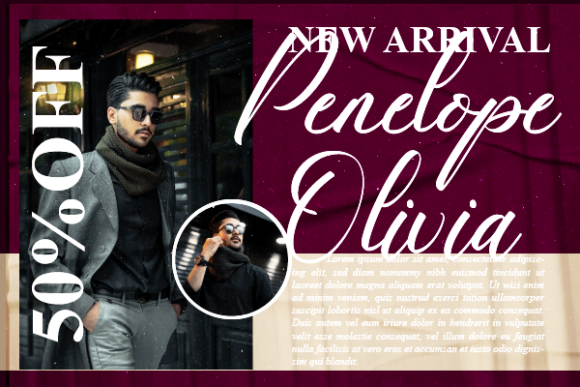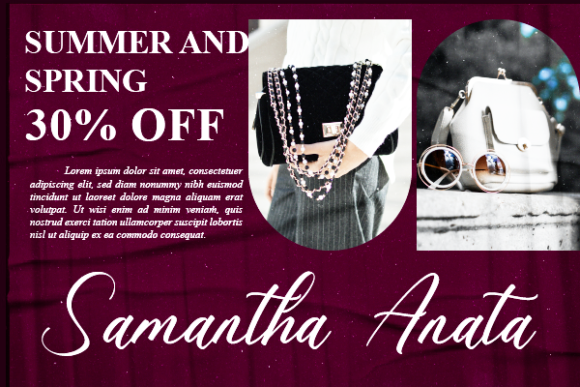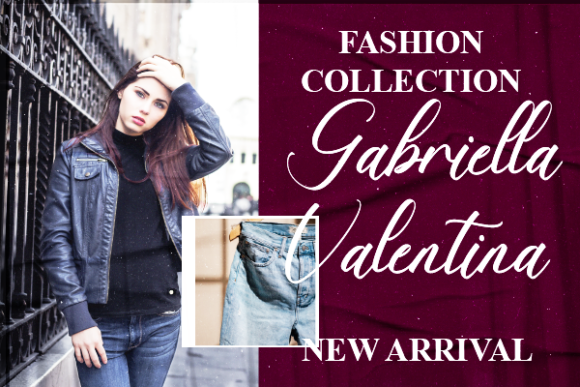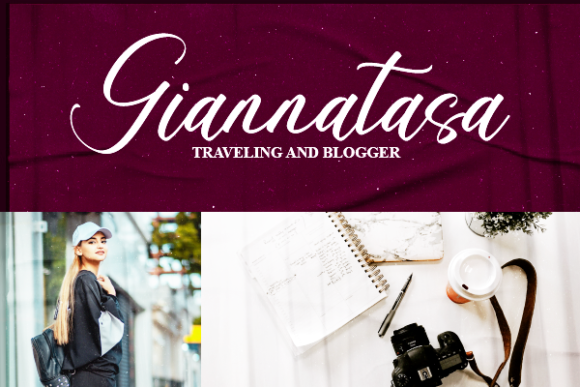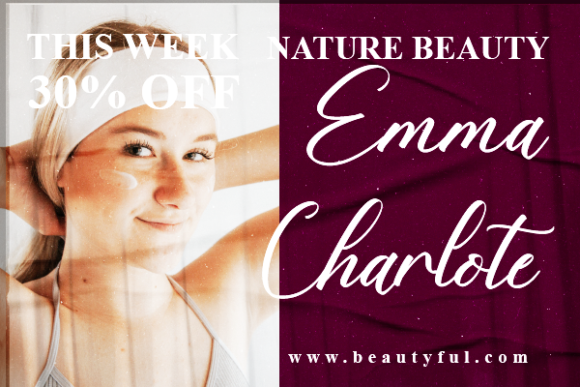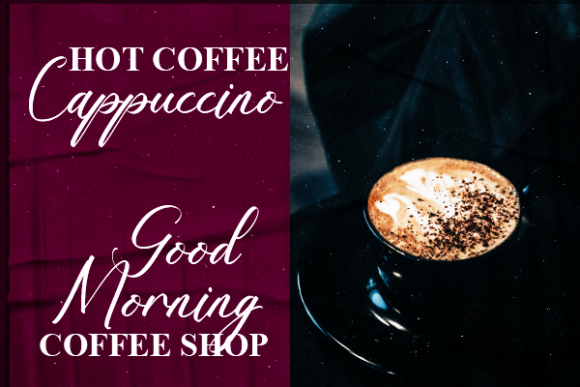
Introducing Blakely Harmony Font: Elevate Your Designs with Elegance
In the world of typography, a font can make or break a design. For designers and crafters looking for a touch of elegance and sophistication, Blakely Harmony Font is an excellent choice. This delicate and fashionable script font is perfect for a variety of applications, from logos and t-shirt printing to creative products and more.
What Makes Blakely Harmony Font Special?
Blakely Harmony Font stands out for its unique blend of delicacy and fashion. Its script style is both modern and timeless, making it versatile enough to fit into numerous design contexts. Whether you’re working on a branding project that requires a touch of sophistication or a creative product that needs a stylish edge, Blakely Harmony is up to the task.
Key Features of Blakely Harmony Font
- Delicate and Fashionable: The font’s design is characterized by its delicate strokes and fashionable appeal, making it perfect for designs that require a touch of elegance.
- Versatile: Blakely Harmony can be used in a variety of contexts, from digital applications like website headers and social media graphics to print applications like t-shirt printing and logo design.
- Easy to Read: Despite its delicate nature, Blakely Harmony maintains a high level of readability, making it suitable for both headlines and body text.
- Customizable: The font comes with a range of features that allow for customization, including ligatures, swashes, and alternate characters, giving designers the flexibility to create unique designs.
Use Cases for Blakely Harmony Font
Blakely Harmony Font is incredibly versatile, making it suitable for a wide range of design projects. Here are some of the most popular use cases:
- Logo Design: The font’s elegant and modern style makes it perfect for logos that require a touch of sophistication.
- T-Shirt Printing: Blakely Harmony’s fashion-forward design translates well to apparel, making it a great choice for custom t-shirts and hoodies.
- Creative Products: From stationery and invitations to home decor and packaging, Blakely Harmony can add a touch of elegance to any creative product.
- Branding Projects: The font is ideal for branding projects that require a delicate yet fashionable script style, including business cards, brochures, and website headers.
Tips for Using Blakely Harmony Font
To get the most out of Blakely Harmony Font, here are some tips:
- Pair with Contrasting Fonts: For maximum impact, pair Blakely Harmony with a contrasting font to create visual interest.
- Experiment with Colors: The font looks great in a variety of colors, so don’t be afraid to experiment and find the perfect hue for your design.
- Use Ligatures and Swashes: Take advantage of the font’s features, such as ligatures and swashes, to add a touch of personality to your design.
| Font Name | Blakely Harmony Font |
Blakely Harmony Font is a beautiful and versatile script font that can elevate any design project. Its delicate and fashionable style makes it perfect for a wide range of applications, from logos and t-shirt printing to creative products and branding projects. With its readability, customizability, and range of features, Blakely Harmony is an excellent choice for designers and crafters looking to add a touch of elegance to their designs.